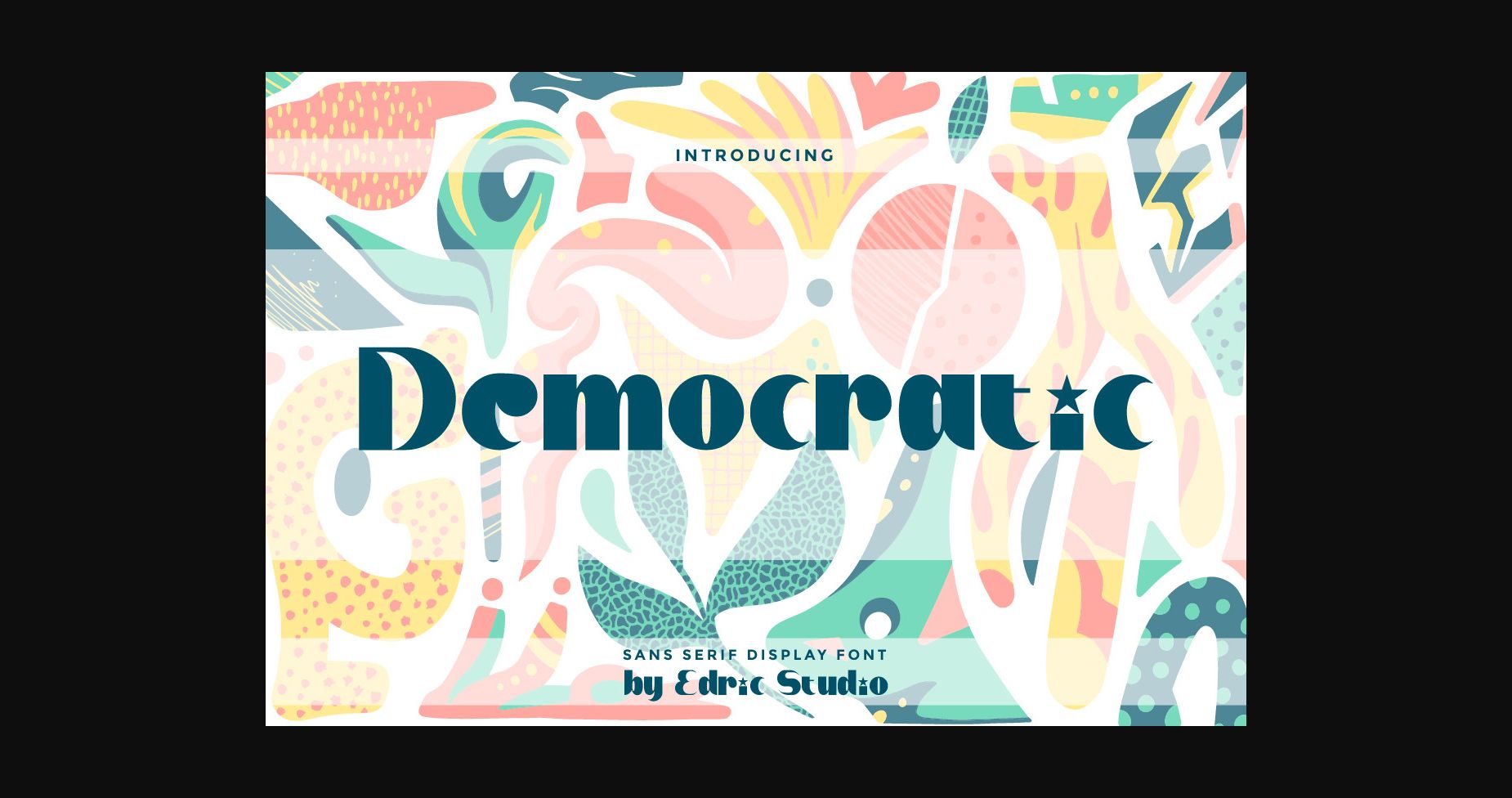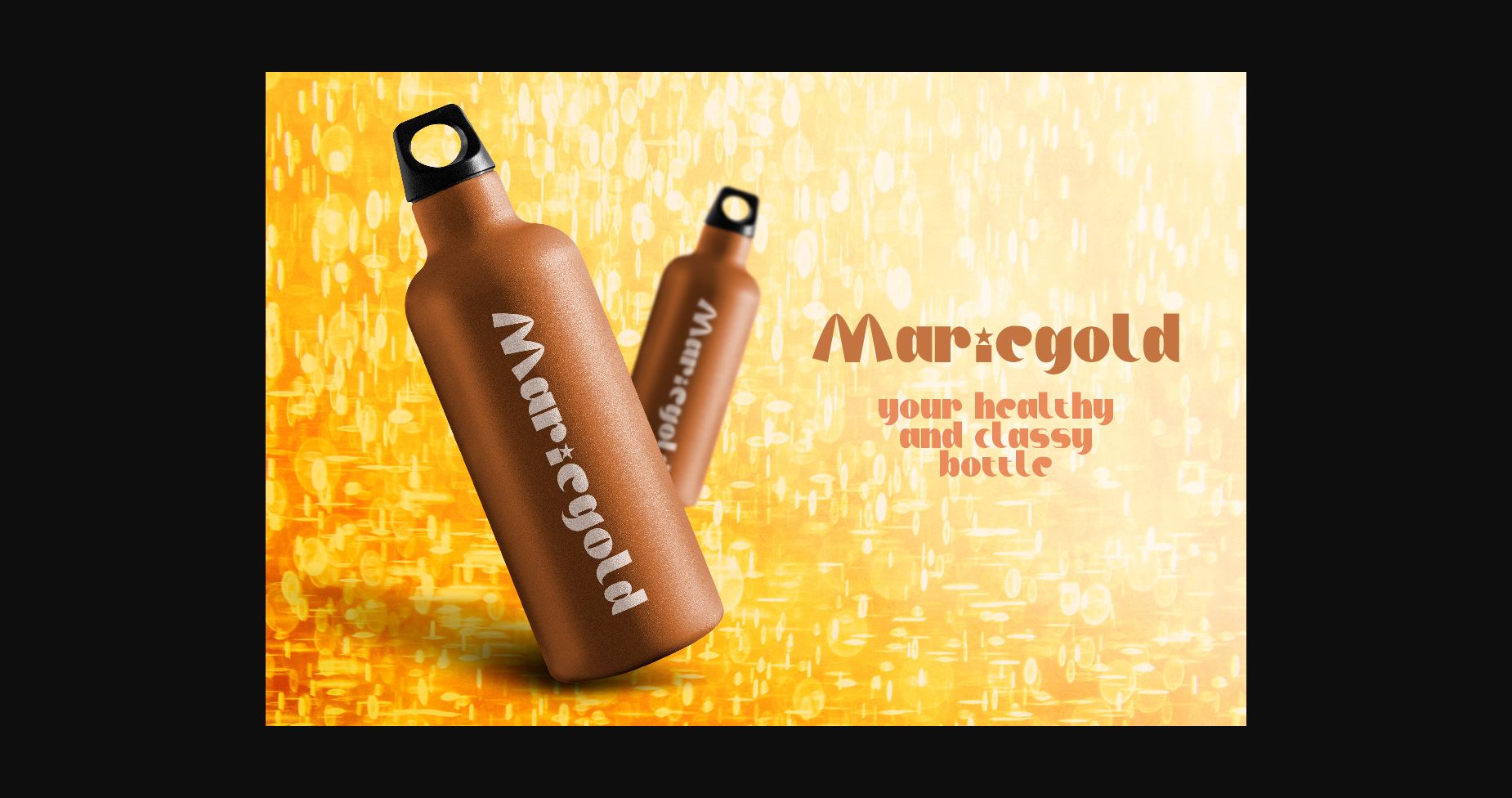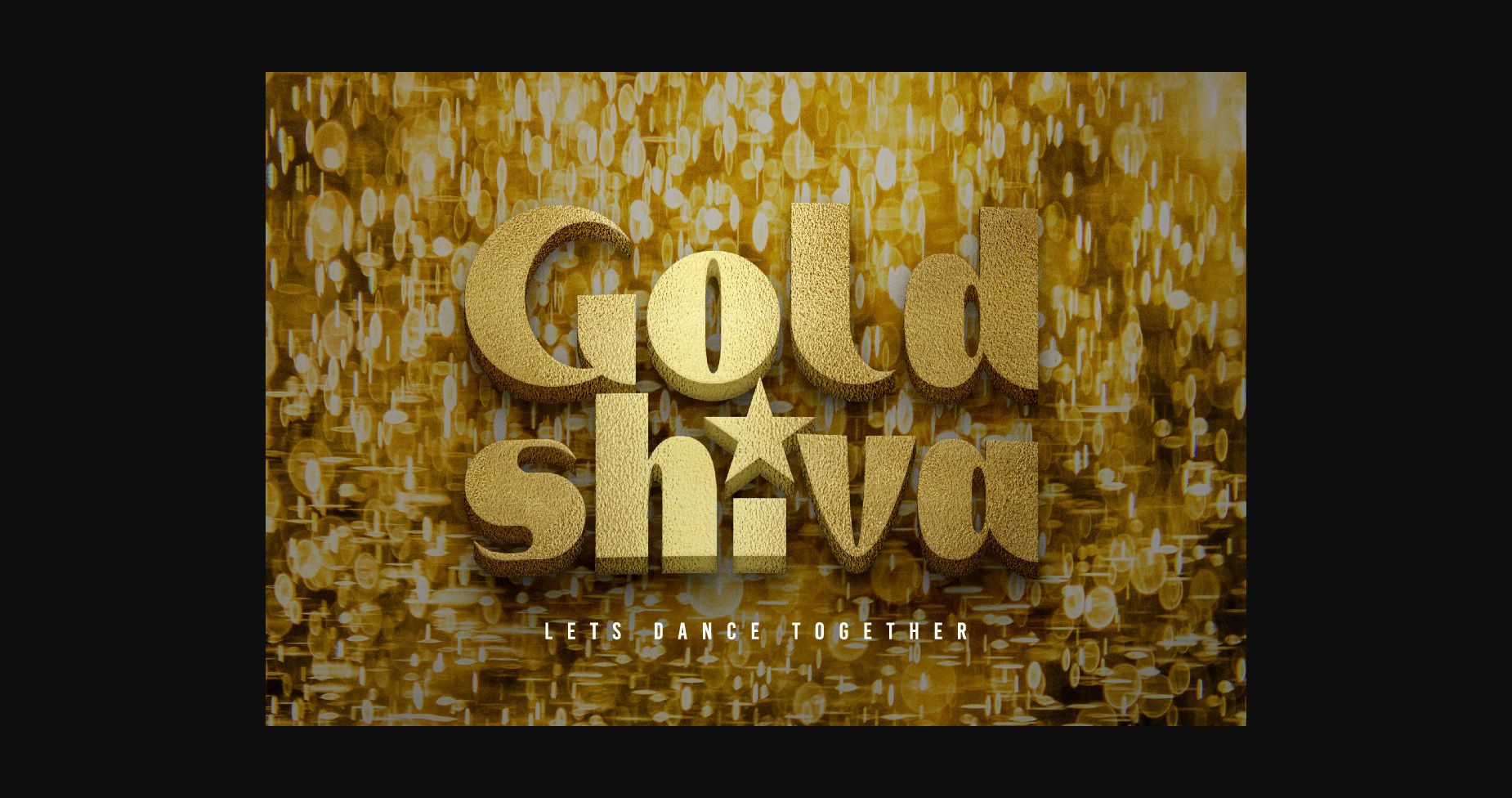
About Democratic Font
Democratic Font is a patriotic sans serif display font that combines classy and modern styles created by EdricStudio, inspired by the writing style of the demonstrators who represent the voice of the people through their actions. Almost all industries will be matched for this typeface including apparel, author, drink, fashion, entertainment & tv show, food, homeware, journalism, movie, publishing, etc.
Democratic Font comes with a full set of Uppercase and Lowercase Basic Characters, Numbers, a large range of Punctuation, and symbols. It has a stunning characters set, perfectly managed with well-spaced and kerning. Democratic Font will be great for any projects (with extended ) including blog headers, brochures, business cards, posters, printed materials, product packaging, title, etc.